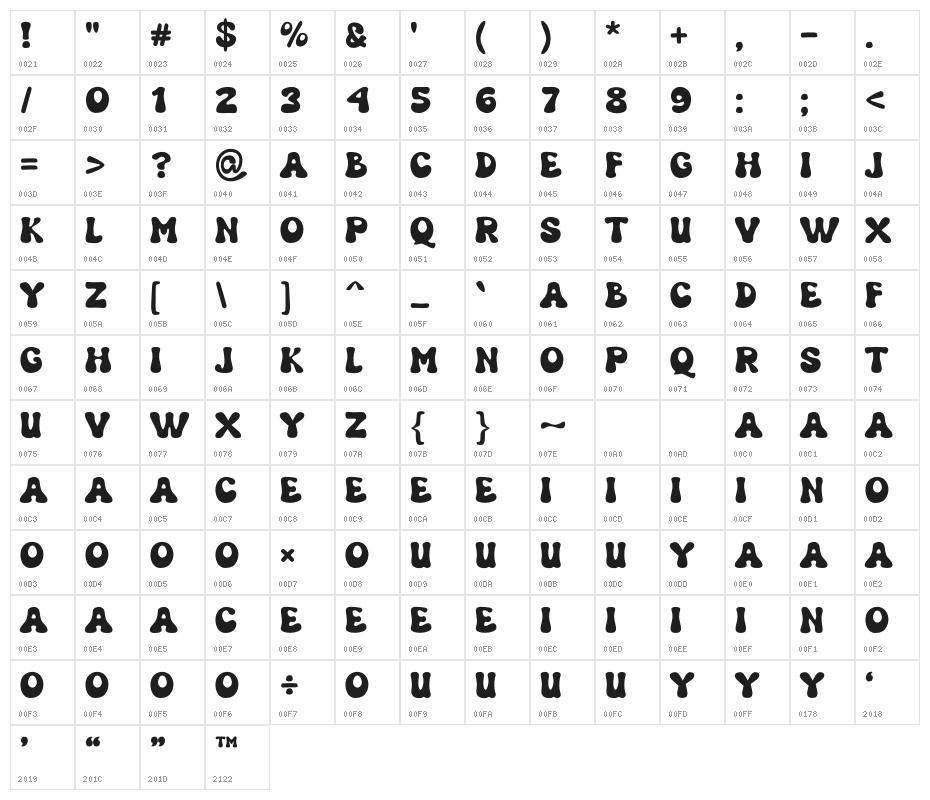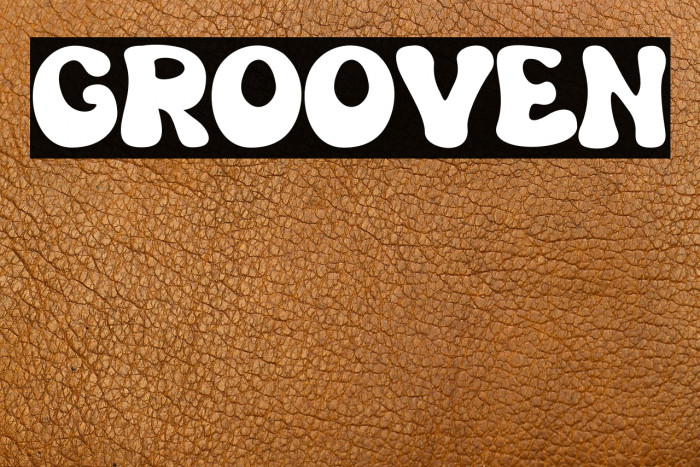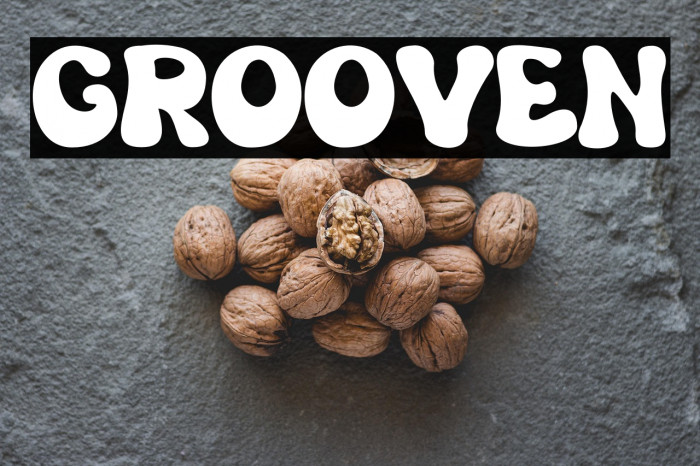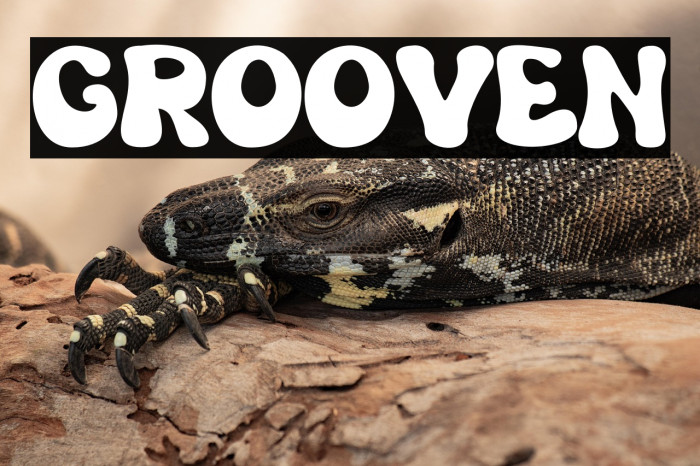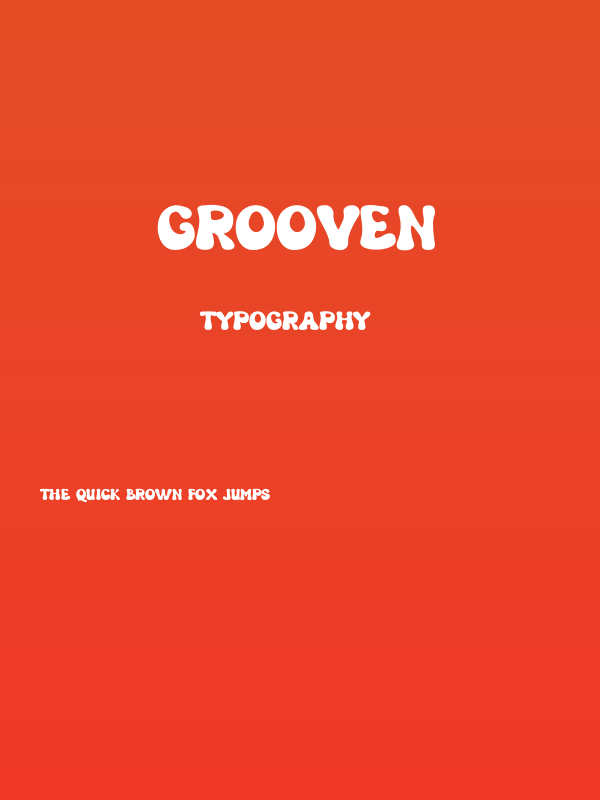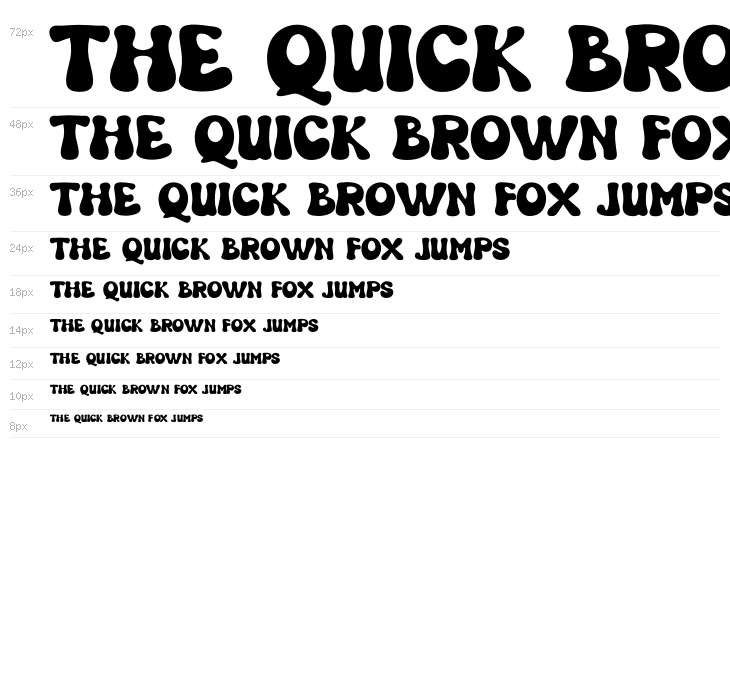
Grooven Font
Grooven Description
This font features a bold and playful design with rounded, bubbly characters that exude a sense of fun and creativity. The letters are thick and have a consistent stroke width, giving them a strong presence. The overall style is reminiscent of retro and vintage aesthetics, making it ideal for projects that aim to capture a nostalgic or whimsical feel. The characters are well-spaced, ensuring readability while maintaining a cohesive look. This font is particularly suitable for eye-catching headlines, logos, and branding materials where a lively and energetic vibe is desired.
| Overall Style | Vintage |
| Use Case | Headlines, Logos, Branding |
| Proposed Projects | Perfect for retro-themed posters, playful branding, children's books, and creative logos. |